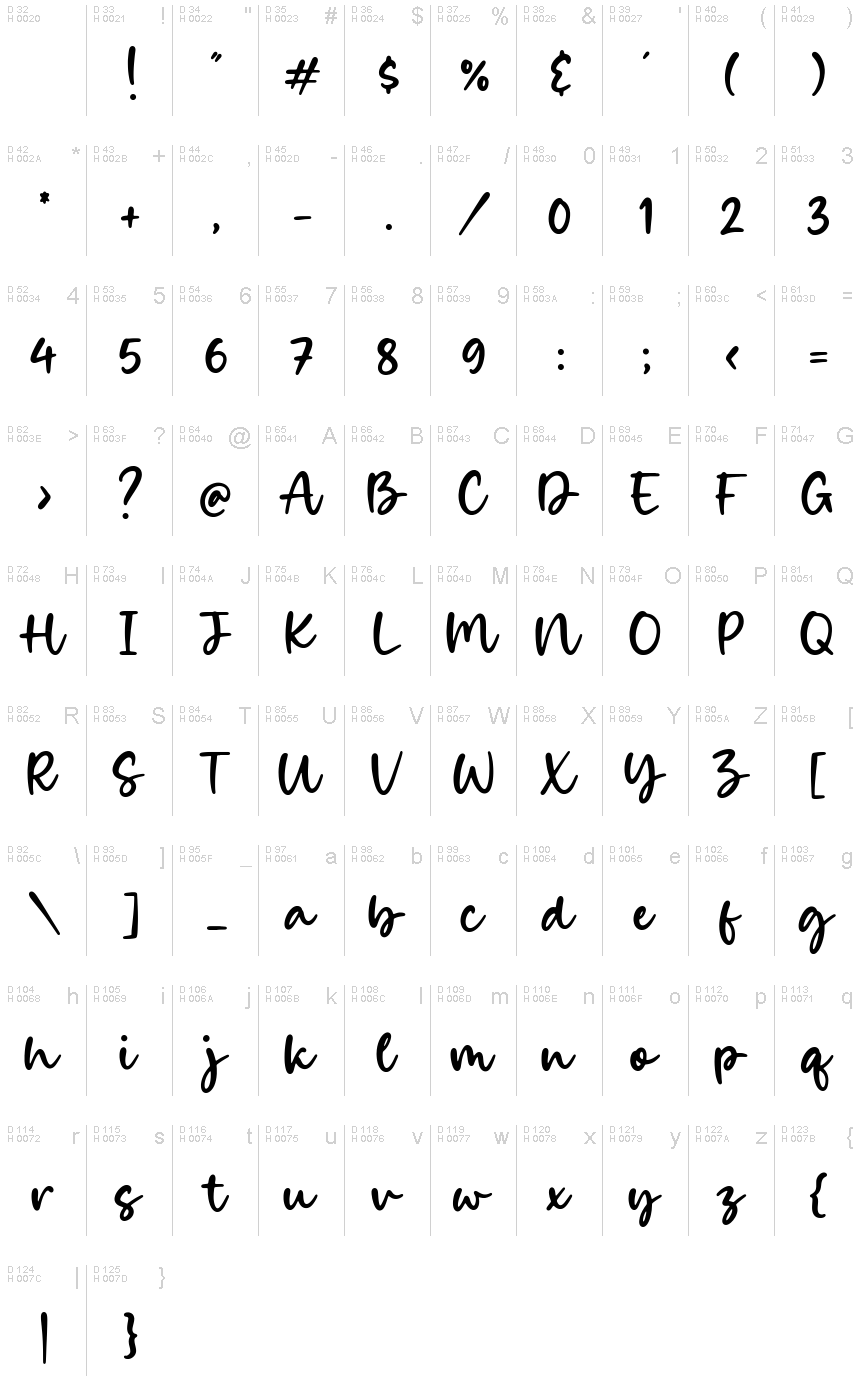
Candies
Candies, crafted by the creative Timur Type, is a semi-bold handwritten font that embodies a blend of casual charm with contemporary flair. Its flowing curves and slightly varied line weights evoke the spontaneity of hand-drawn letters, while maintaining a clean and consistent structure that ensures legibility and function. The aesthetic appeal of Candies lies in its ability to convey warmth and personality, making it an excellent choice for designs that require an intimate touch.
Perfect for branding, packaging, social media graphics, and invitations, Candies offers designers a versatile tool to inject their projects with an approachable yet sophisticated vibe. Whether you're crafting a logo that needs to resonate on a personal level or creating marketing materials that stand out in their human-centric approach, Candies is poised to elevate your creative vision with its stylish handwritten elegance.